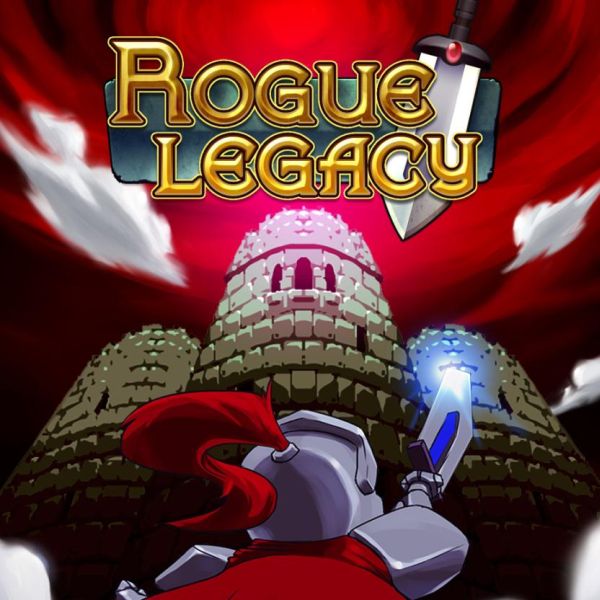
Rogue Legacy Font
ActionRogue Legacy is a procedurally generated action-platformer game developed and published by Cellar Door Games. In the game, players control a character who must explore a randomly generated castle filled with traps and monsters, with the goal of defeating the boss at the end of each run.